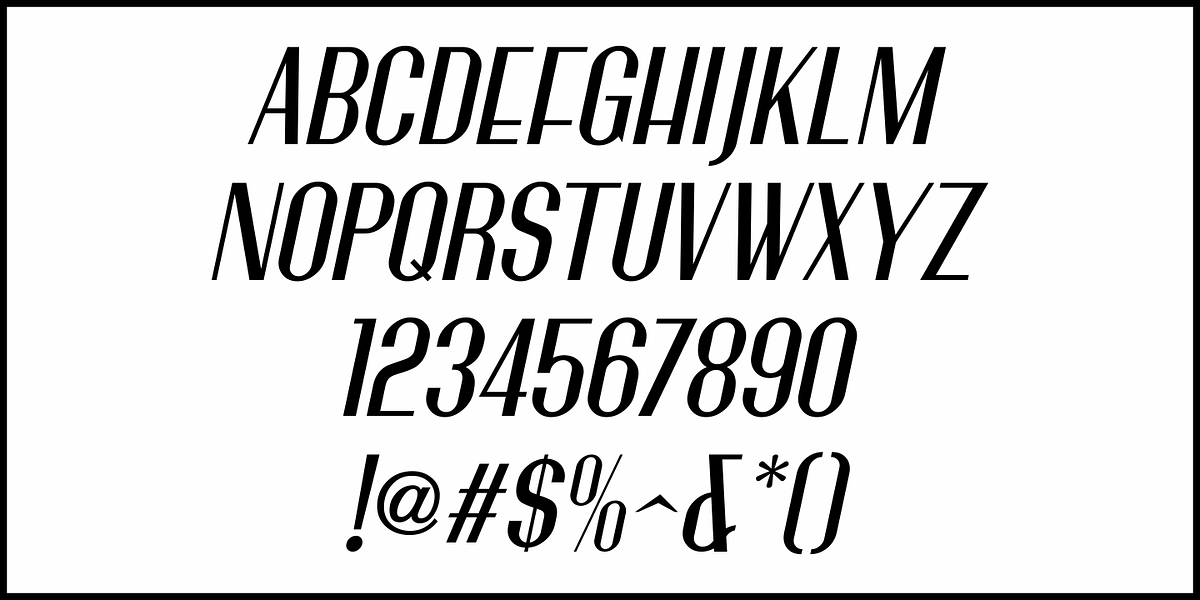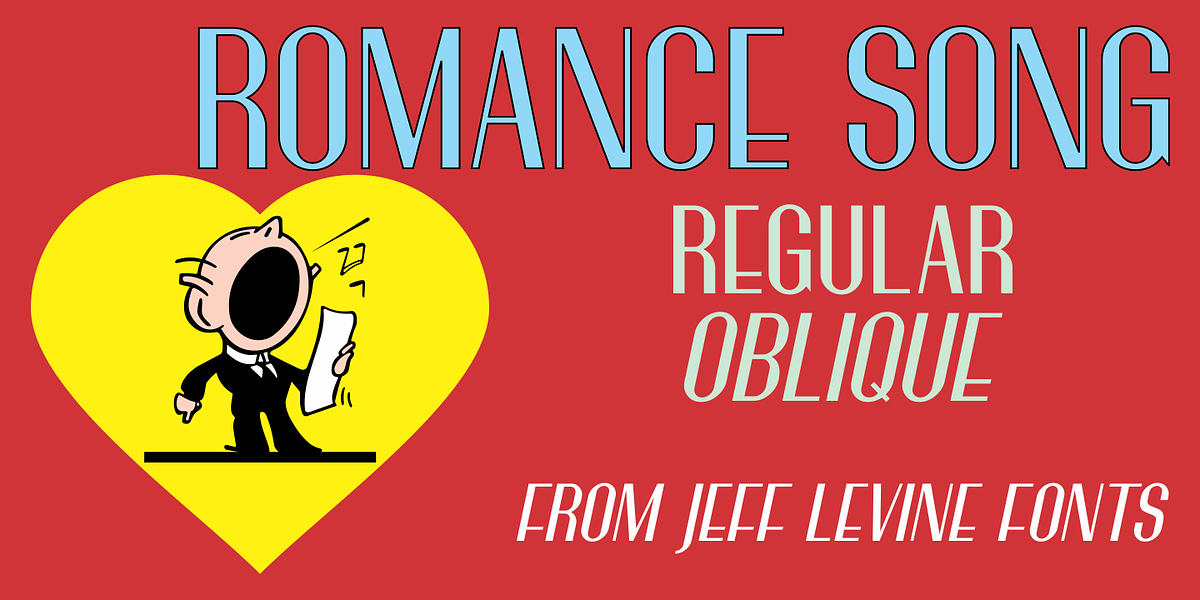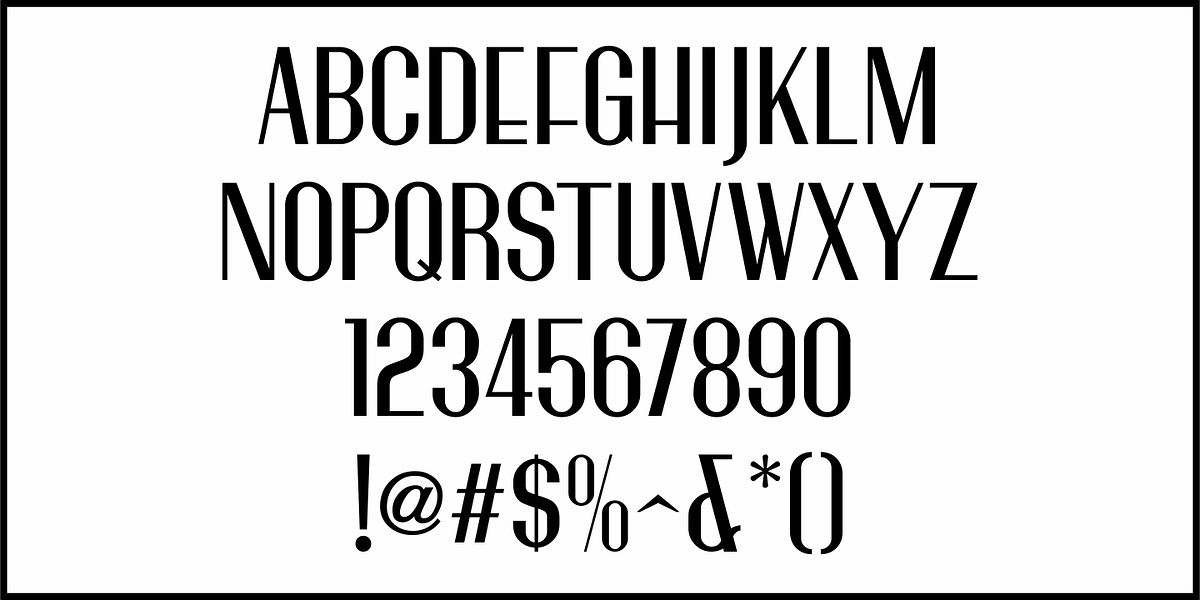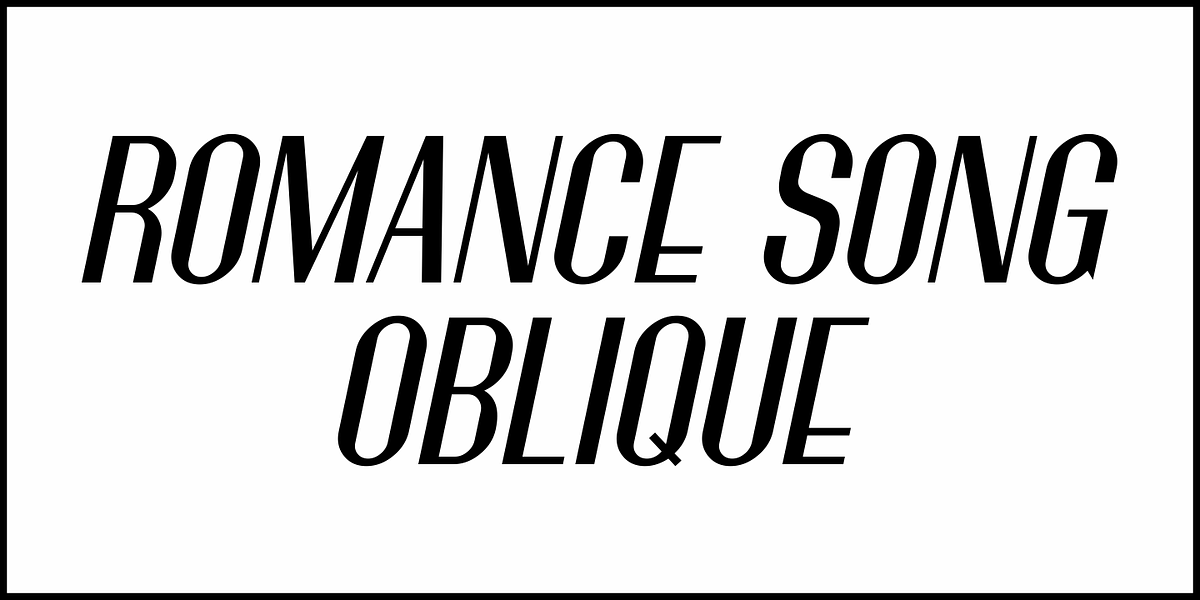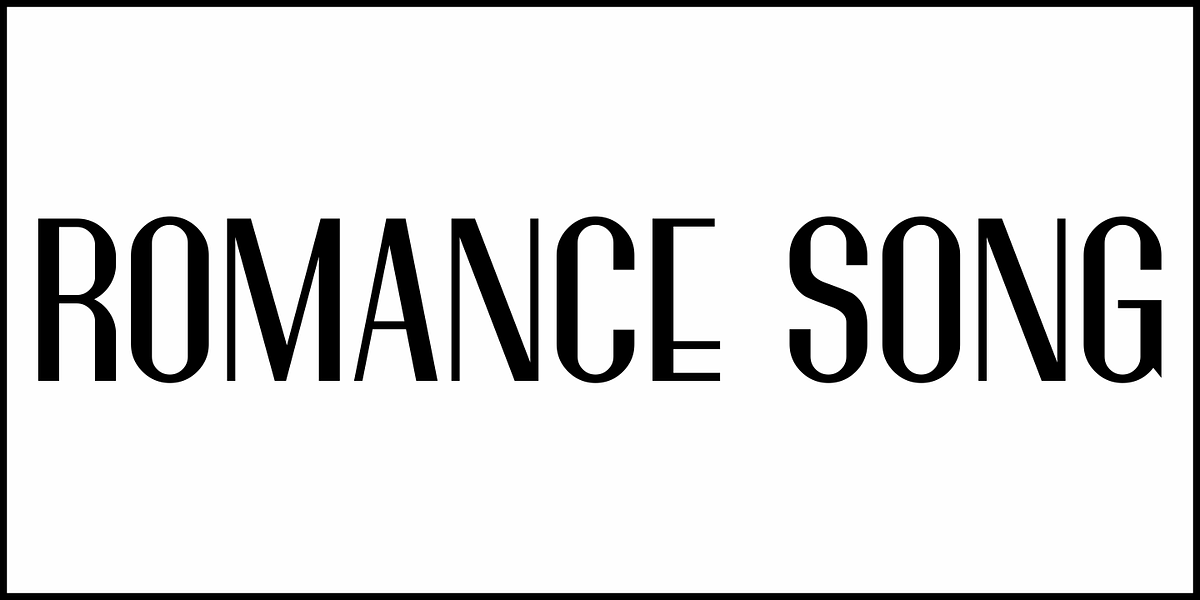
Romance Song JNL
The hand lettered Art Deco sans serif lettering used for the opening titles of the 1941 melodrama “Penny Serenade” (starring Cary Grant) inspired a digital revival.
Romance Song JNL is available in both regular and oblique versions.